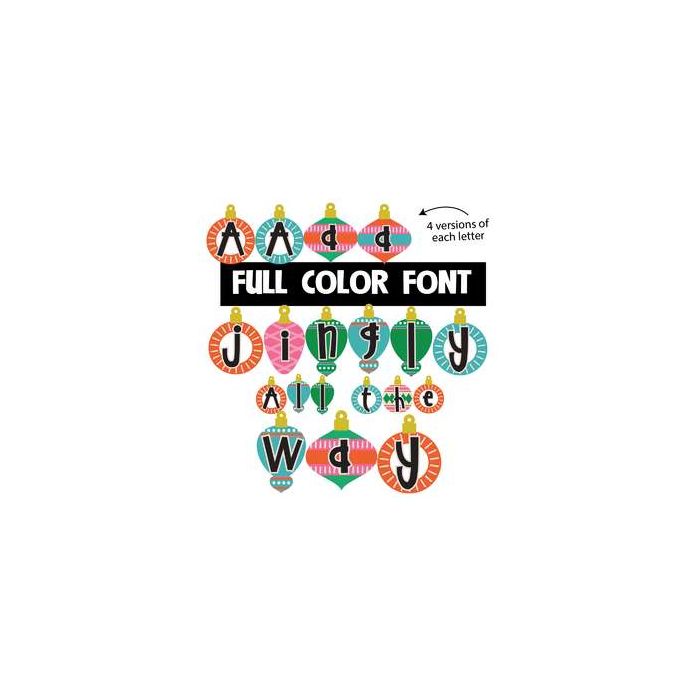
This full-color font features colorful ornaments with busy designs. There is a second upper and lower alt case you can access through your system's character map. Please note color fonts will show as black in non compatible programs. This font type is compatible with Silhouette Studio.